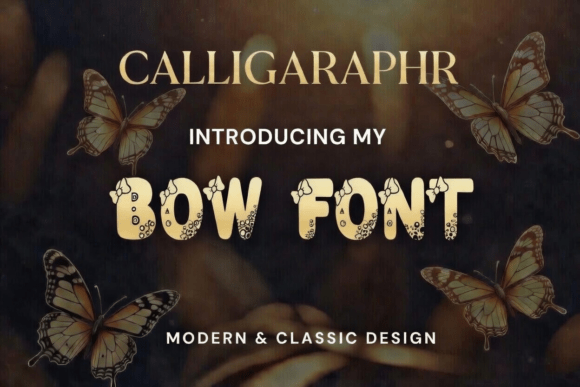
Add a Touch of Sweetness to Your Designs with Bow Font
I’ll never forget the time I was working on a craft project for a client’s birthday, and I just couldn’t find the perfect font to match the playful theme. The design needed something sweet, something fun, and something that would make the recipient’s eyes light up. That’s when I stumbled upon Bow Font, and it was love at first sight! 💕
This wonderfully cute and playful display font has been a game-changer for my designs, and I’m excited to share its charm with you. Bow Font features thick, rounded letters, perfectly adorned with an adorable little bow on the top corner. To make it even more special, the bottom half of each letter is filled with a fun, decorative circular/bubble pattern. It’s a unique typeface that seamlessly blends modern chunky lettering with classic cute design, making it a must-have for crafters and designers alike!
An Honest Review of Bow Font
• ✅ The adorable bow on top of each letter adds a touch of whimsy and playfulness
• ✅ The circular/bubble pattern at the bottom of each letter is a delightful detail
• ✅ The font is highly versatile and can be used for a variety of creative projects, from crafts to digital designs
• ✅ The thick, rounded letters make it perfect for display text and titles
• 🤔 The font may not be suitable for body text or long paragraphs, as it’s primarily designed for display purposes
• 🤔 Some users may find the bow and bubble pattern too playful or childish for certain projects
The creator of Bow Font drew inspiration from childhood memories of crafting and scrapbooking. They wanted to design a font that would evoke a sense of playfulness and whimsy, while still being versatile and easy to use. The result is a font that’s perfect for crafters, designers, and anyone looking to add a touch of sweetness to their creative projects.
Q: Is Bow Font suitable for body text?
A: While Bow Font is a beautiful font, it’s primarily designed for display purposes. It’s not recommended for body text or long paragraphs.